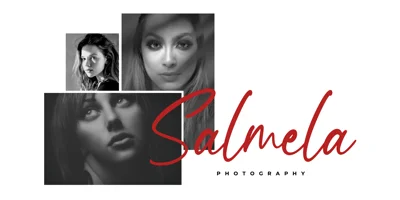
Otamendi Font
Otamendi Font is perfect for cultural heritage projects, artisan craft branding, traditional restaurant signage, folk art exhibitions, handmade product packaging, cultural festival materials, heritage tourism promotions, and authentic regional identities.
Otamendi Font is exciting because it embodies the rich cultural heritage and artisanal craftsmanship of traditional typography through its distinctive character design that celebrates authentic regional identity and handcrafted excellence. Its unique styling and cultural authenticity make it the perfect choice for brands that want to honor tradition while creating meaningful connections with audiences who value heritage and authenticity.
The Otamendi Font family includes multiple heritage-inspired variations: Otamendi Regular, Otamendi Bold, Otamendi Light, Otamendi Condensed, Otamendi Ornamental, and Otamendi Script, along with traditional decorative elements and cultural symbols, providing designers with comprehensive tools for creating authentic heritage-focused brand experiences.
When exploring cultural typography solutions, Otamendi Font stands out as the premier choice for designers working on heritage and tradition-focused projects. This remarkable typeface captures the essence of cultural authenticity while offering the technical precision that contemporary design projects require. The font's distinctive character and cultural resonance create immediate connections with audiences who appreciate traditional craftsmanship and regional identity.
Creative professionals consistently turn to Otamendi Font for projects requiring genuine cultural authenticity and meaningful heritage appeal. Its carefully crafted letterforms feature traditional influences that work exceptionally well in both intimate artisan packaging and large-scale cultural exhibition displays. The font's ability to convey cultural pride and artistic tradition while maintaining strong brand recognition makes it invaluable for comprehensive identity systems in the cultural heritage, artisan craft, and authentic regional product sectors.
Whether you're developing cultural institution identities, creating artisan product branding, or designing heritage festival materials, Otamendi Font delivers the authentic cultural character and traditional appeal that resonates with audiences who value heritage preservation and authentic craftsmanship. Its rich cultural associations and distinctive design ensure your projects honor traditional values while maintaining contemporary professional standards.